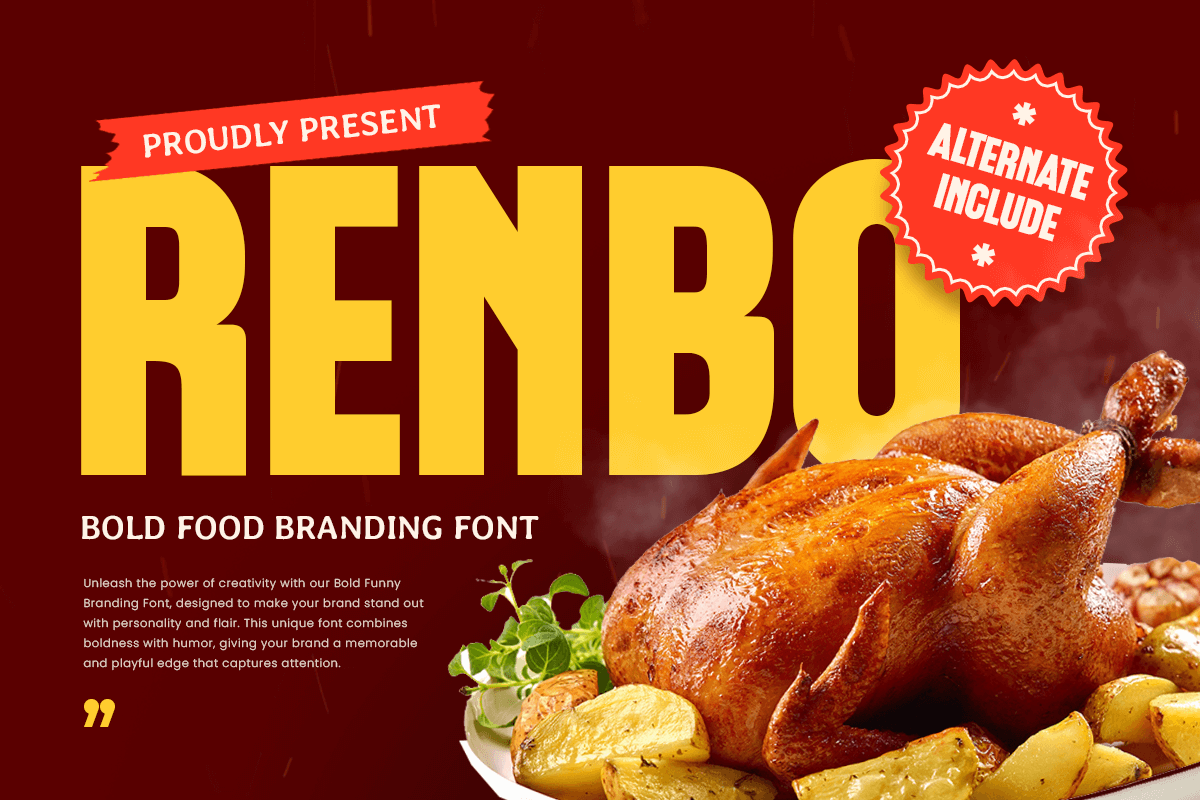
Renbo
-Bold Food Branding FontRenbo - Bold Food Branding Font
Renbo is a bold food branding font designed to bring fun and appetite appeal to your creative projects. Its chunky forms and rounded corners deliver a friendly, modern aesthetic that’s ideal for food-related designs—from fast food chains and snack packaging to colorful menu layouts and restaurant logos.
Crafted with simplicity and flavor in mind, Renbo’s strong shapes make it highly readable and instantly recognizable, whether displayed on shelves or digital platforms.
Give your brand a taste of bold personality with Renbo, the perfect font for food, fun, and flavor.
Renbo – Bold Food Branding Font Features
Playful and bold type style
Great for food packaging and brand identity
Punctuation, numbers, and symbols included
Uppercase and lowercase letters
OpenType features included